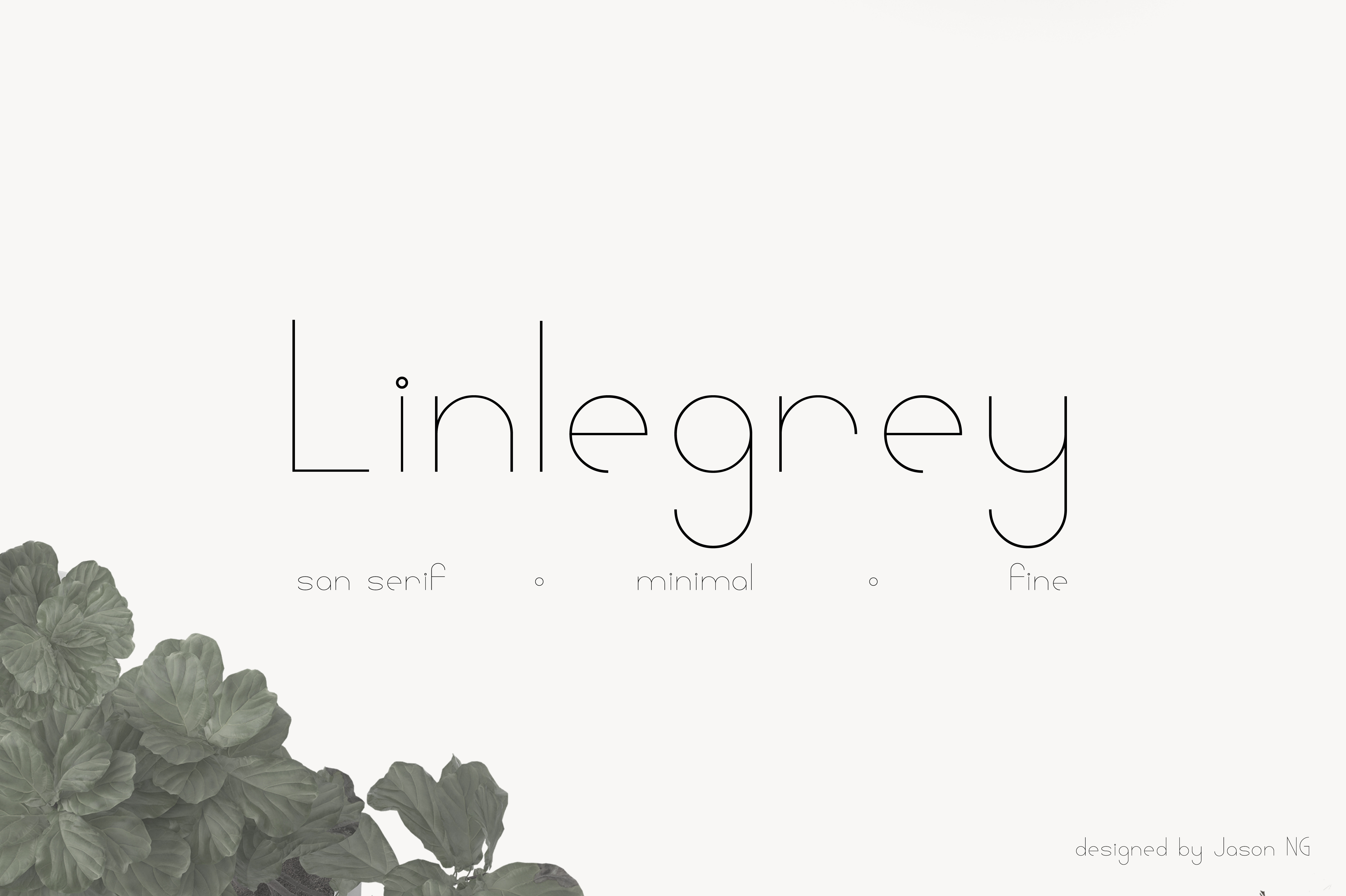
Linlegrey | A Designer Font
Linlegrey | regular
Modern / Minimal / Fine Linlegrey is perfect for your design. It suits perfectly for your branding, logo, even your lifestyle blog!